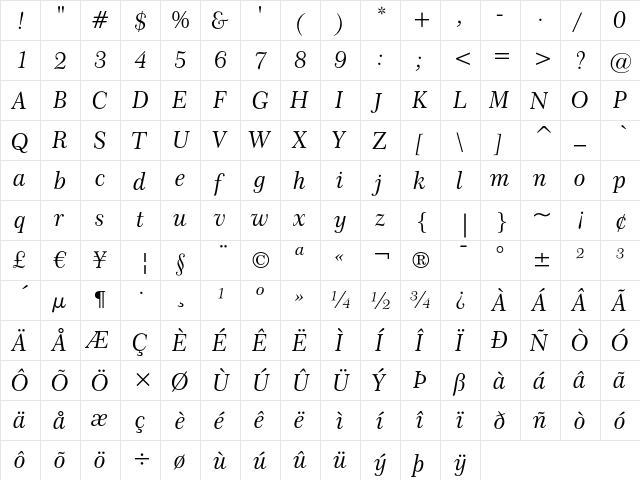
Century 751 Italic No.2
Design Context for Century 751 Typeface
Century 751 offers clean, dependable letterforms without strong stylistic allegiance, making it a practical choice for designers who need flexibility. Its italic angle brings a sense of urgency and motion to the letterforms.
Pro Tip: Use Century 751 for emphasis, pull quotes, and subheadings where its slanted energy can add rhythm to the layout.